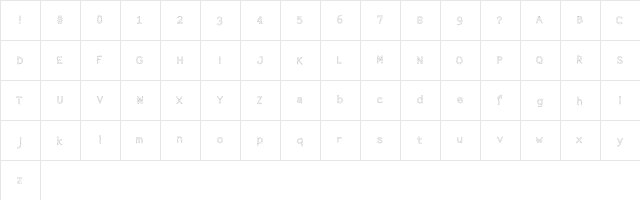
DotOutline Regular
Design Context for DotOutline Typeface
DotOutline celebrates the constraints of early digital type, turning pixel geometry into a distinctive and immediately recognisable style.
Well-suited to indie game interfaces, retro computing aesthetics, and pixel art-adjacent design work.
Pro Tip: Use DotOutline at sizes that align with its pixel grid for the sharpest rendering — scaling to non-integer multiples can introduce unwanted blur.